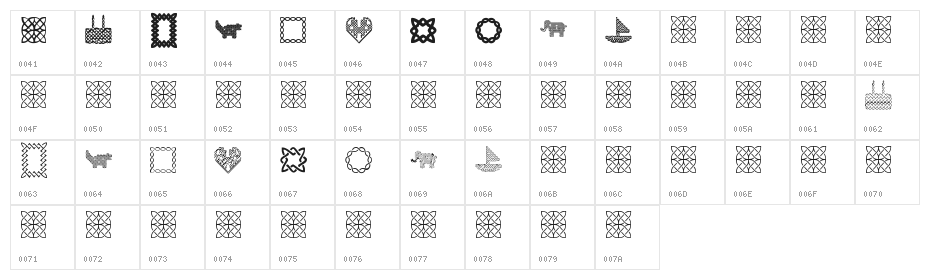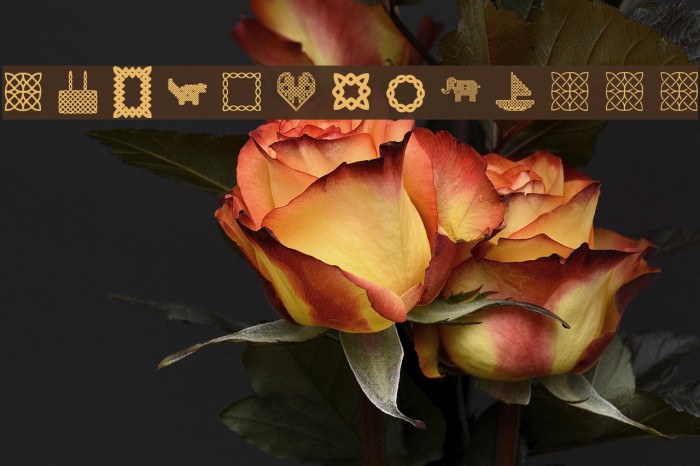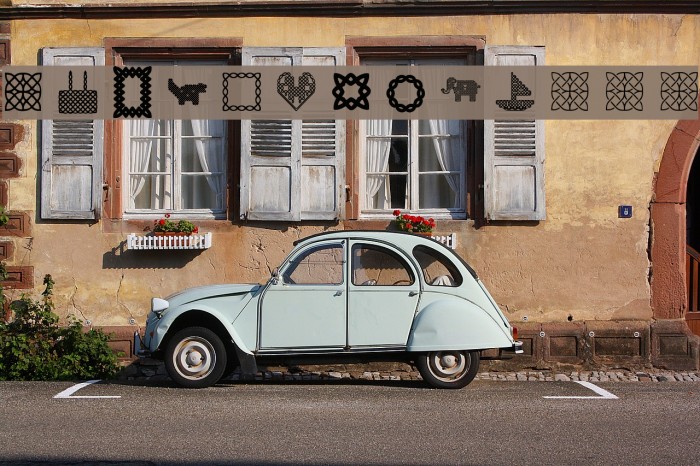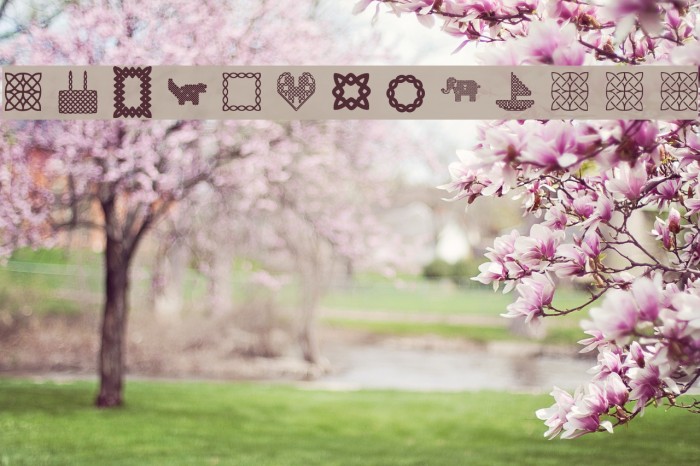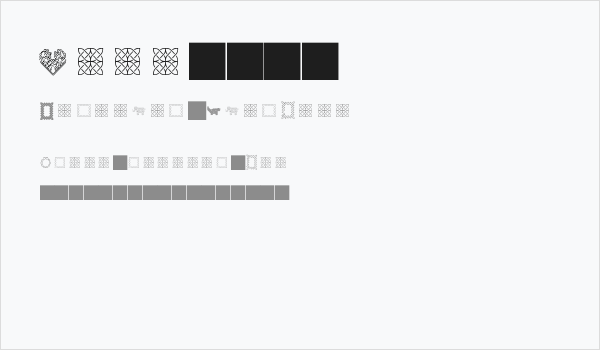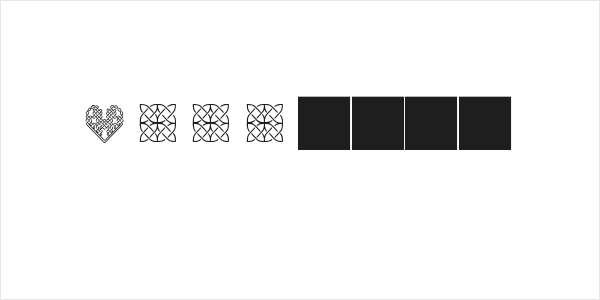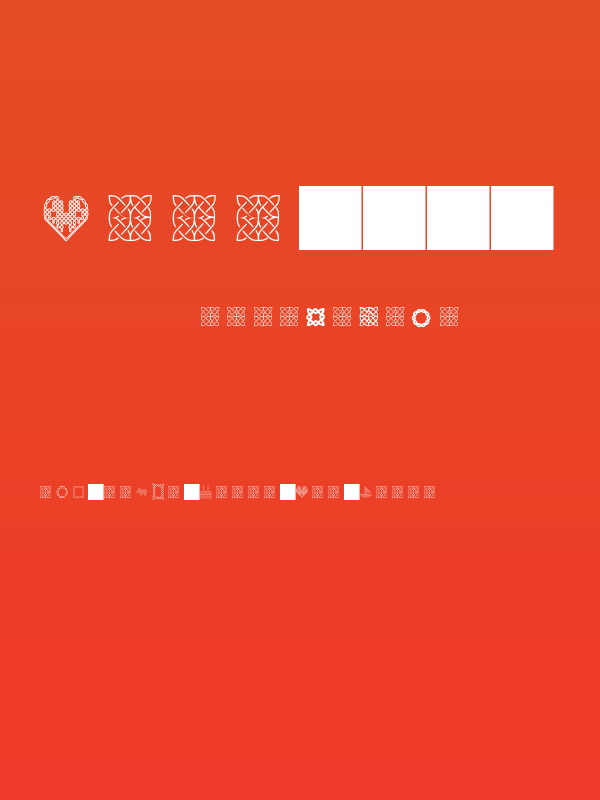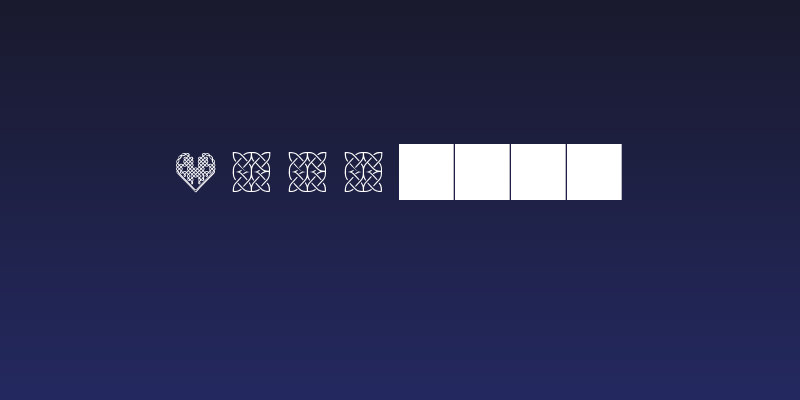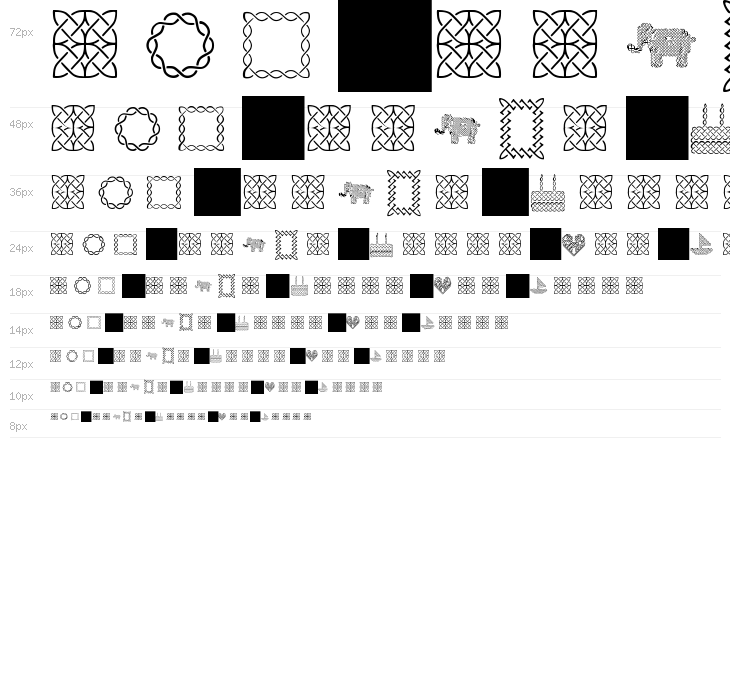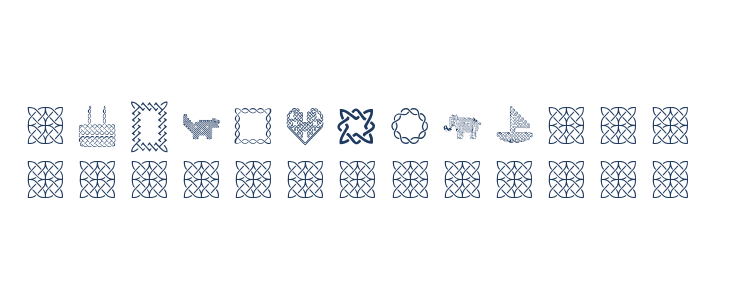
font3419 Font
font3419 Description
A decorative dingbat font featuring a variety of outlined icons, including geometric patterns, animals, hearts, frames, and other playful shapes. The icons are composed of dotted or patterned lines, giving a whimsical and hand-crafted appearance.
| Overall Style | Decorative, Playful, Hand-crafted |
| Use Case | Decorative elements, Icons, Borders, Craft projects |
| Proposed Projects | Greeting cards, scrapbooking, invitations, children's projects, decorative borders, and playful branding. |